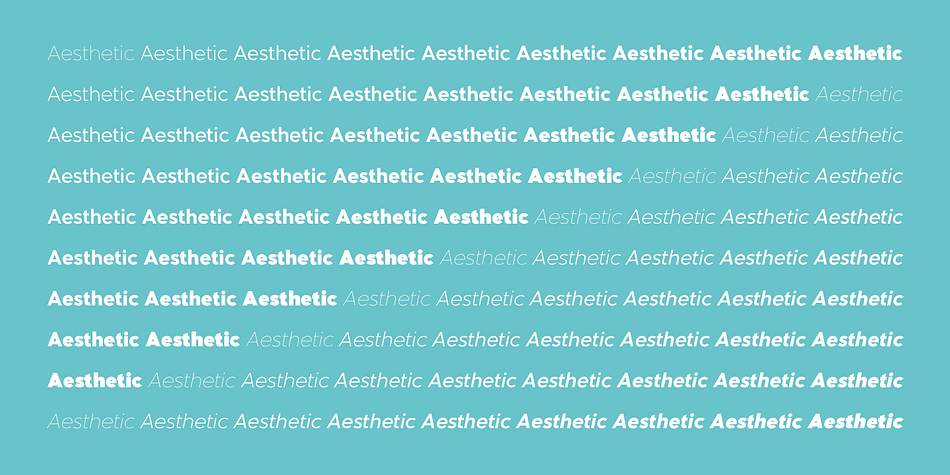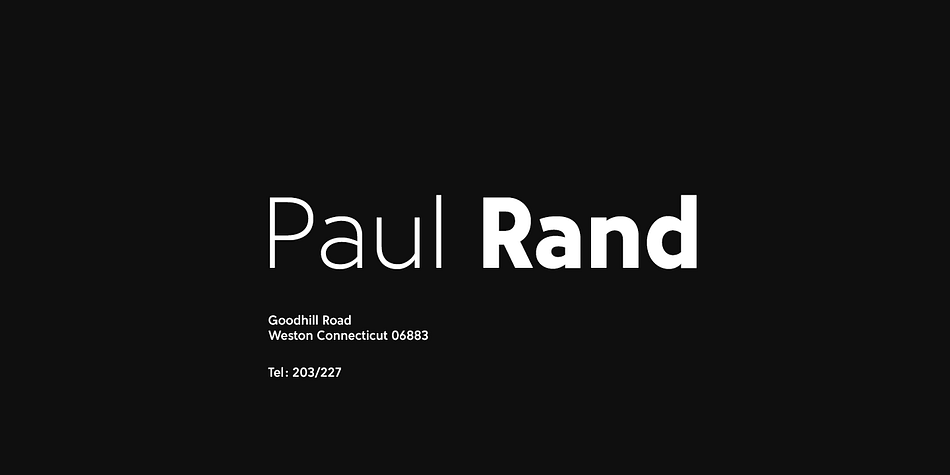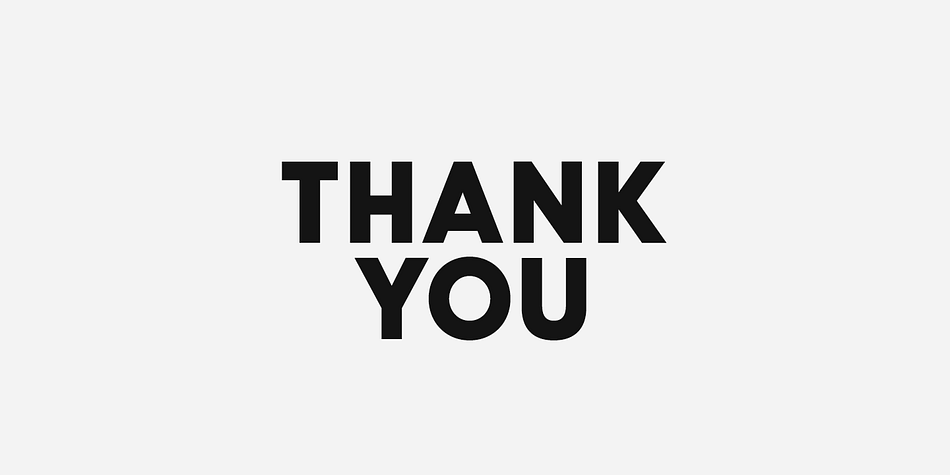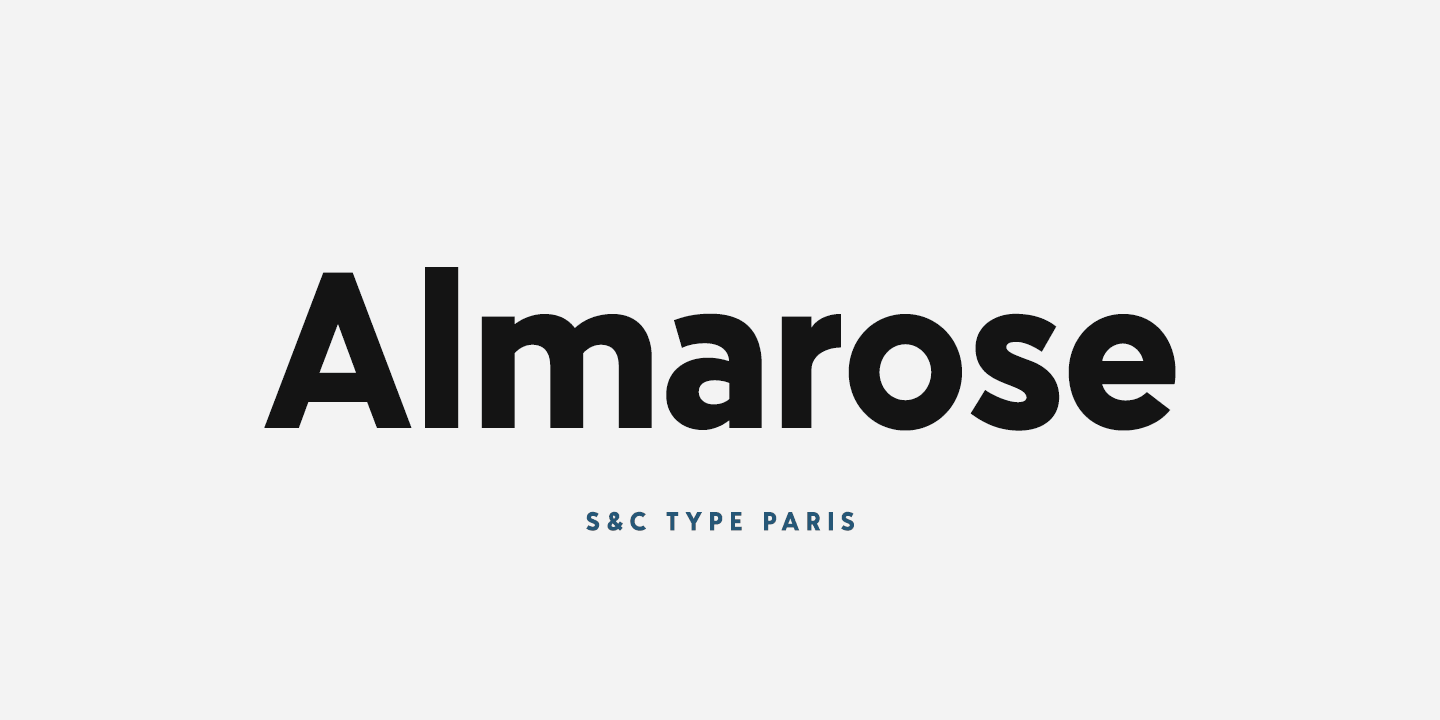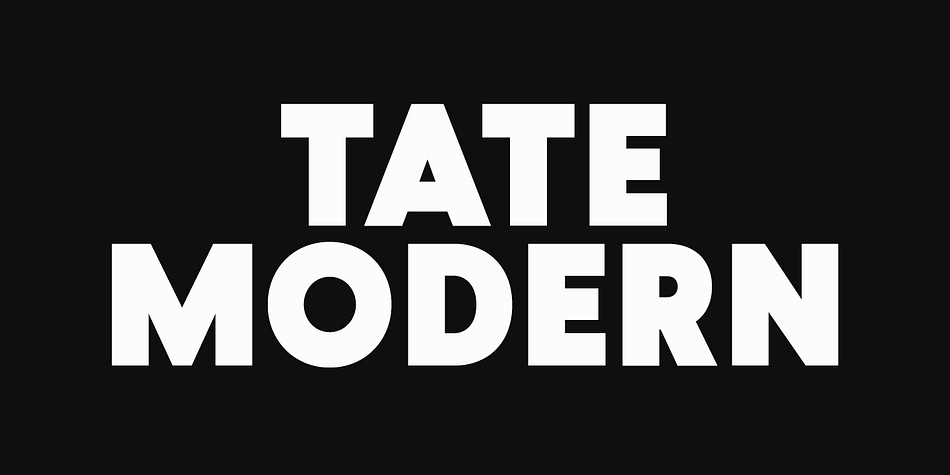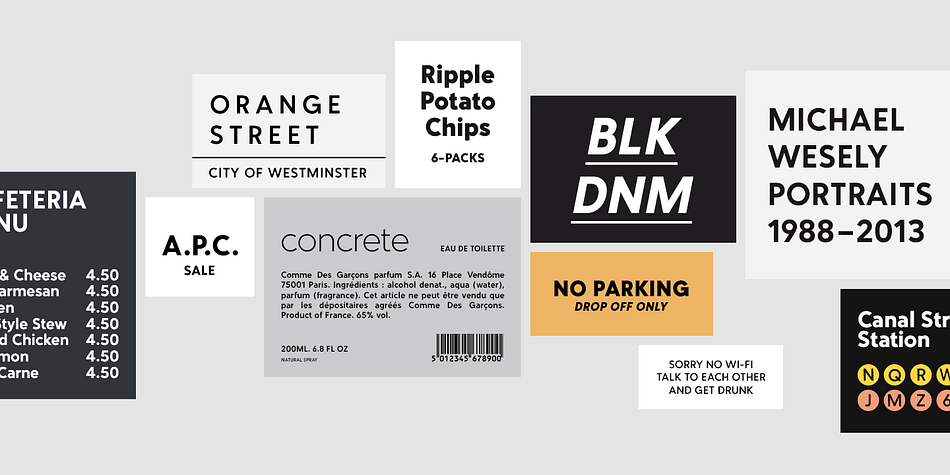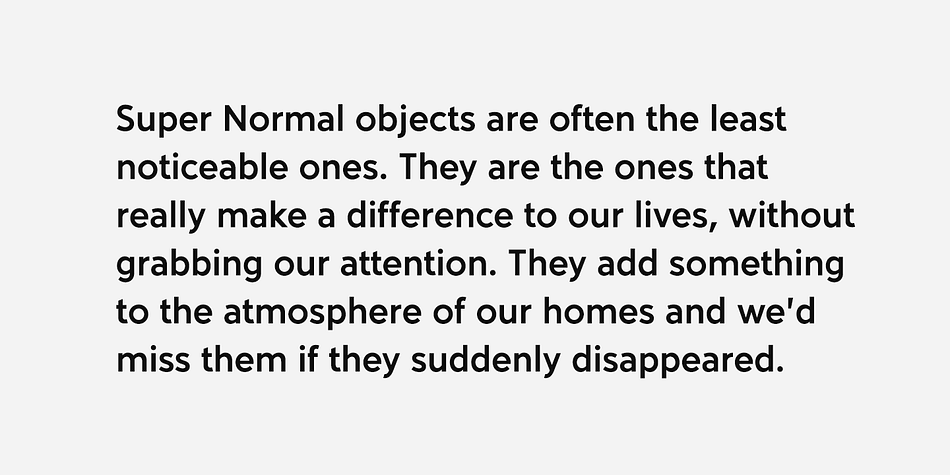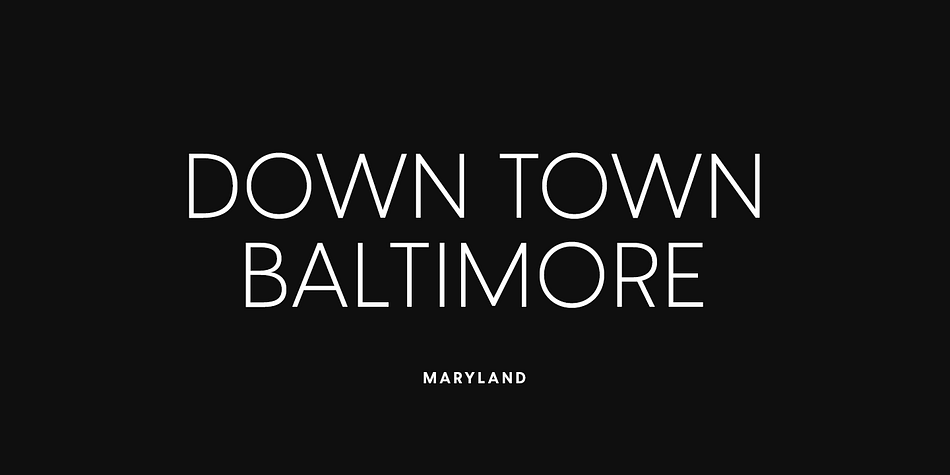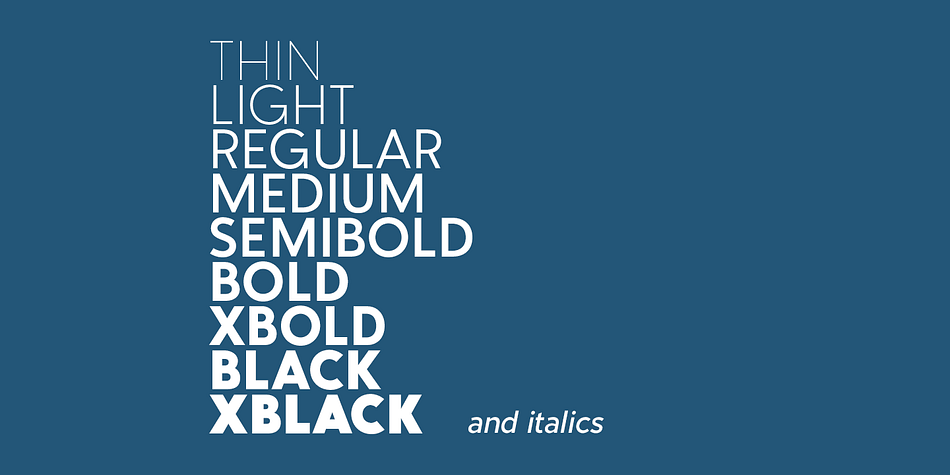
Designed by Fanny Coulez, Almarose is a sans serif font family. This typeface has eighteen styles and was published by S&C Type.
Almarose is a geometric sans serif OpenType font designed by Fanny Coulez and published by S&C Type. Functional with a little distinctive touch, Almarose comes with 9 weights with italics, from Thin to ExtraBlack, and was designed for all uses like texts, web or headlines. Merci beaucoup.